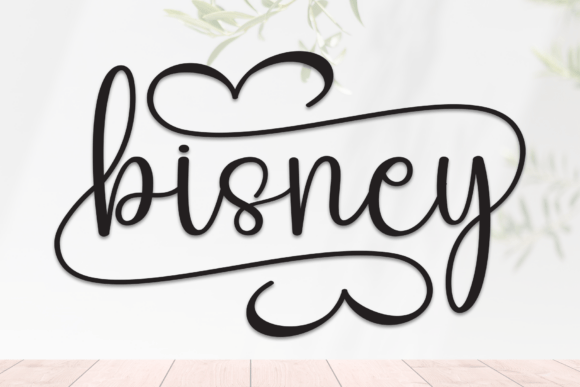
Bisney Font: The Ultimate Handwritten Display Font for Creative Projects
Are you looking for a font that can add a touch of whimsy and delight to your creative projects? Look no further than the Bisney Font! This charming and lovable handwritten display font is perfect for designing wedding invitations, greeting cards, and any other project that requires a sprinkle of fun. In this article, we’ll take a closer look at the Bisney Font and explore its features, benefits, and uses.
What is Bisney Font?
Bisney Font is a handwritten display font that is both whimsical and delightful. Its gentle allure, mingled with a playful bounce, adds an exciting flavor to every design venture. This font is perfect for anyone looking to add a touch of personality and charm to their creative projects.
Features of Bisney Font
The Bisney Font has several features that make it stand out from other fonts. Some of its key features include:
- Handwritten style: The Bisney Font has a beautiful, handwritten style that gives it a personal and unique touch.
- Whimsical and delightful: This font has a playful and whimsical feel that makes it perfect for creative projects that require a sprinkle of fun.
- Gentle allure: The Bisney Font has a gentle allure that makes it perfect for designing wedding invitations, greeting cards, and other special occasion materials.
- Playful bounce: This font has a playful bounce that adds an exciting flavor to every design venture.
Benefits of Using Bisney Font
There are several benefits to using the Bisney Font in your creative projects. Some of the benefits include:
- Unique and personalized: The Bisney Font has a unique and personalized style that sets it apart from other fonts.
- Adds a touch of whimsy: This font adds a touch of whimsy and delight to any design project, making it perfect for creative projects that require a sprinkle of fun.
- Perfect for special occasions: The Bisney Font is perfect for designing wedding invitations, greeting cards, and other special occasion materials.
- Easy to read: This font is easy to read, making it perfect for body text and other applications where readability is important.
Uses of Bisney Font
The Bisney Font can be used in a variety of creative projects, including:
- Wedding invitations: This font is perfect for designing beautiful and unique wedding invitations.
- Greeting cards: The Bisney Font is perfect for designing greeting cards for special occasions, such as birthdays, holidays, and anniversaries.
- Social media graphics: This font can be used to create social media graphics that are both fun and engaging.
- Logos and branding: The Bisney Font can be used to create unique and personalized logos and branding materials.
Tips for Using Bisney Font
Here are some tips for using the Bisney Font in your creative projects:
- Use it sparingly: The Bisney Font is a display font, so it’s best to use it sparingly to add emphasis and interest to your design.
- Pair it with other fonts: This font can be paired with other fonts to create a unique and personalized look.
- Experiment with colors: The Bisney Font can be used with a variety of colors to create a unique and eye-catching design.
The Bisney Font is a truly charming and lovable handwritten display font that is perfect for adding a touch of whimsy and delight to your creative projects. Its gentle allure, mingled with a playful bounce, makes it perfect for designing wedding invitations, greeting cards, and other special occasion materials. With its unique and personalized style, the Bisney Font is sure to add an exciting flavor to every design venture.
- What is the Bisney Font? The Bisney Font is a handwritten display font that is both whimsical and delightful.
- What is the Bisney Font used for? This font can be used in a variety of creative projects, including wedding invitations, greeting cards, social media graphics, and logos and branding materials.
- Is the Bisney Font easy to read? Yes, the Bisney Font is easy to read, making it perfect for body text and other applications where readability is important.